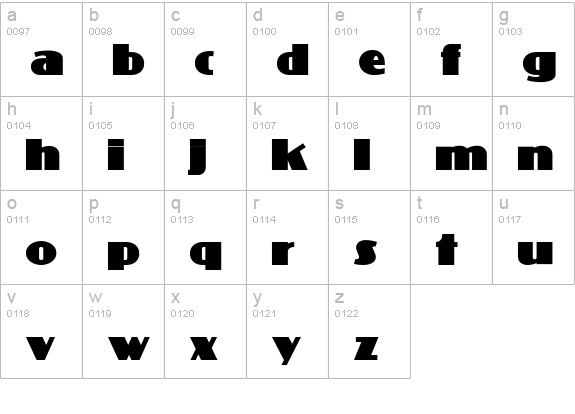
Phatt Phreddy NF font is a bold and eye-catching display typeface that exudes a sense of playfulness and modernity. Its thick, rounded letterforms make a strong statement and are perfect for headlines, branding, and creative projects that require a touch of personality. This unique font is sure to capture attention and leave a lasting impression. The best part is that Phatt Phreddy NF font is completely free to download at FontsMarket.com. This means you can easily access this versatile typeface for all your design needs without any cost. Don't miss out on the opportunity to enhance your projects with the striking and dynamic Phatt Phreddy NF font – download it today and let your creativity shine!